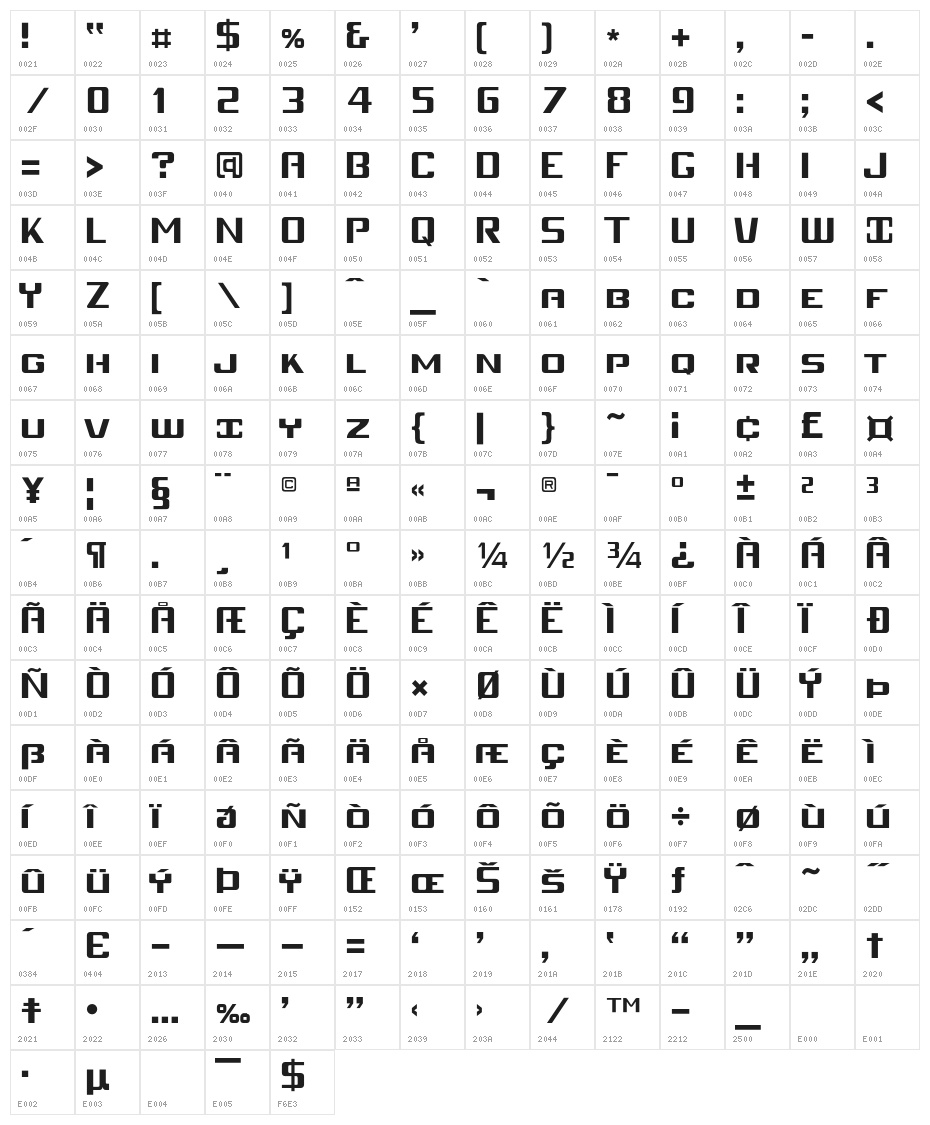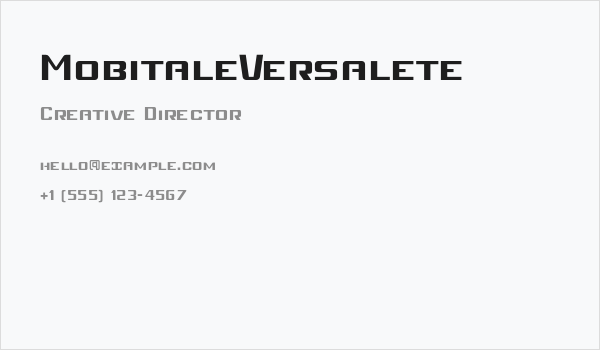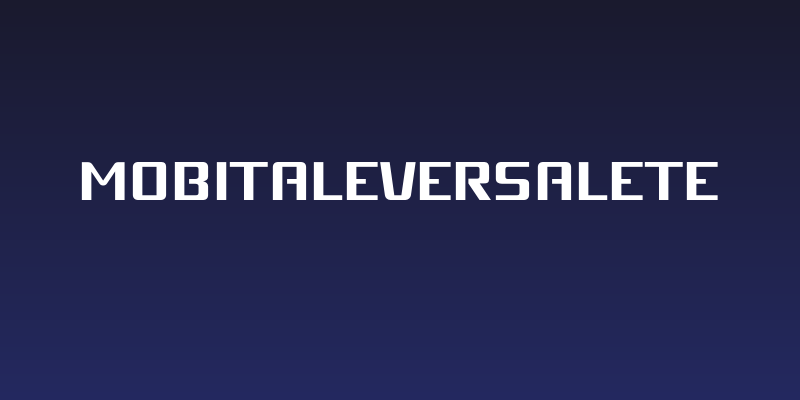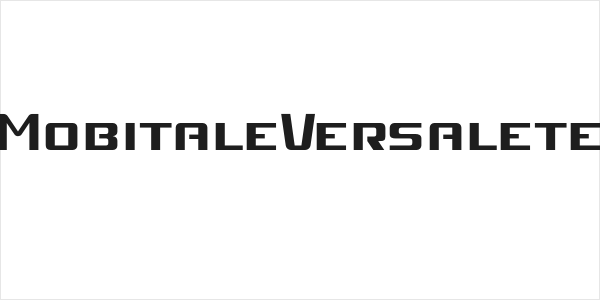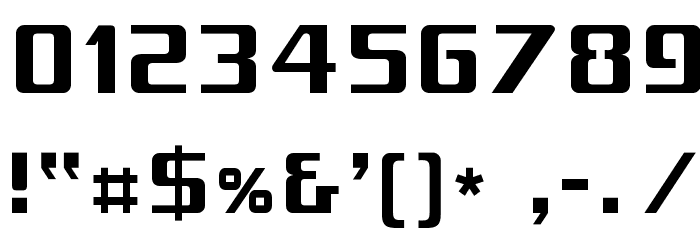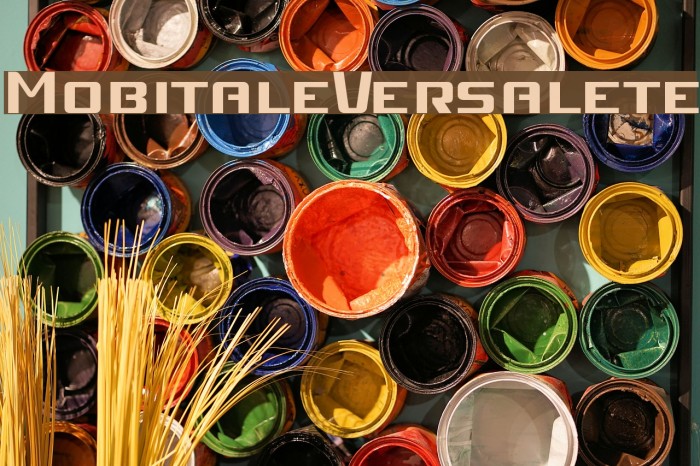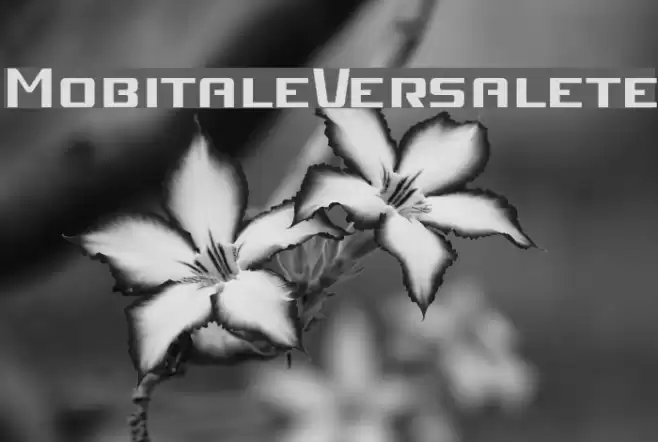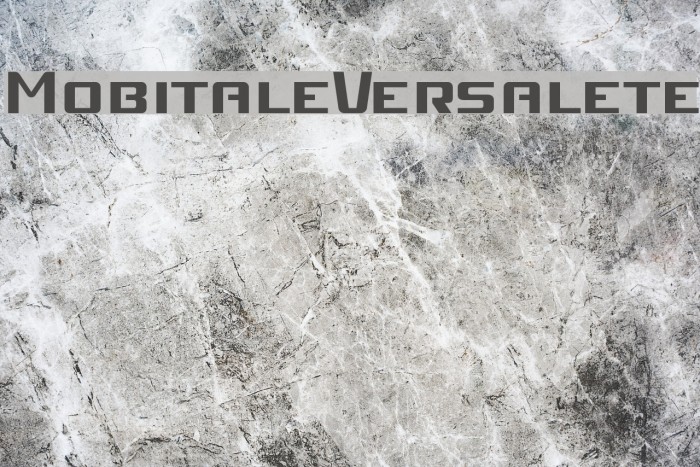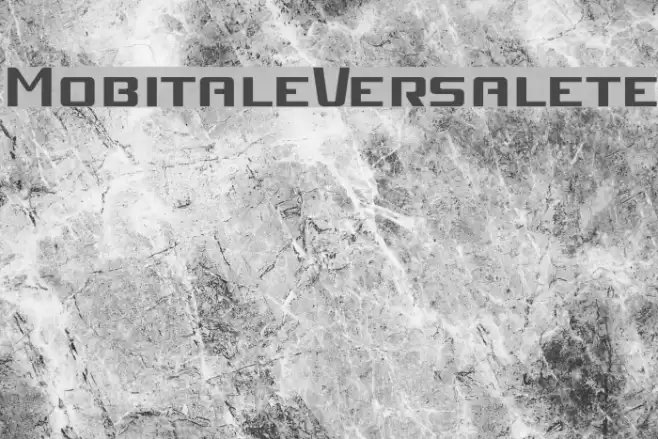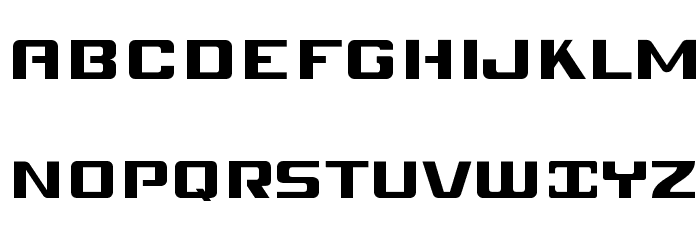
MobitaleVersalete Font
MobitaleVersalete Description
This font features a bold and geometric design with a modern aesthetic. The uppercase letters are uniform in height and width, creating a strong and impactful appearance. The lowercase letters maintain the same boldness, ensuring consistency throughout the typeface. The numerals are distinct and easy to read, with a slightly futuristic feel. Special characters are well-integrated, matching the overall style of the font. The clean lines and sharp angles make it suitable for contemporary design projects.
| Proposed Projects | Ideal for branding, headlines, posters, and digital interfaces where a strong, modern presence is desired. |